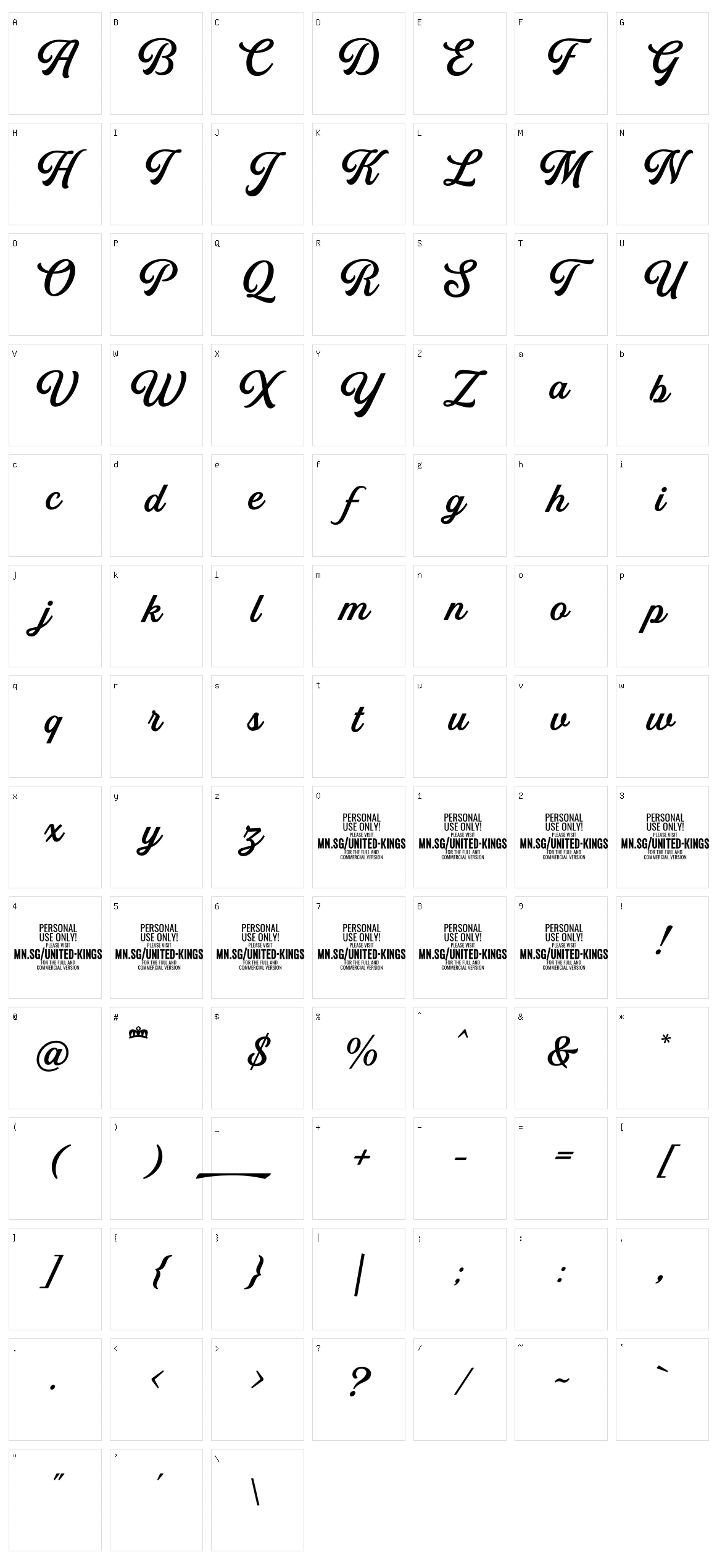
United Kings is a masterfully crafted formal script font that exudes an air of perfection and fine art. Designed for high-end projects and showcasing genuine, authentic craftsmanship, this font brings an unparalleled sense of balance and beauty to your creative work.
The exquisite, well-crafted letterforms of United Kings make it an exceptional choice for logotypes, professional branding, and artisanal projects that require a touch of finesse and sophistication.
Use ¤ to make tail swashes, or multiple for longer swashes.
Example: Kingdom¤¤¤
Use underscores _ anywhere in a word to make an underline.
Example: Belo__ved
Use # after any letter to give it a crown.
Example: Que#en
The United Kings font family includes six elegant styles to suit various design needs:
The weights Thin, Regular and Bold, enabling your design to range from a delicate and graceful style for a refined touch, to a more bold, assertive and captivating presence for impactful designs.
In addition to the thicknesses, each style is provided as Italic.
Built with advanced OpenType functionality, United Kings ensures top-notch quality and provides you with full control and customizability. It includes stylistic and contextual alternates, ligatures, and other features to make your designs as unique and impressive as the font itself.
United Kings offers extensive lingual support, covering all Latin-based languages, from Northern Europe to South Africa, from America to South-East Asia. It contains all the characters and symbols you'll ever need, including all punctuation and numbers.